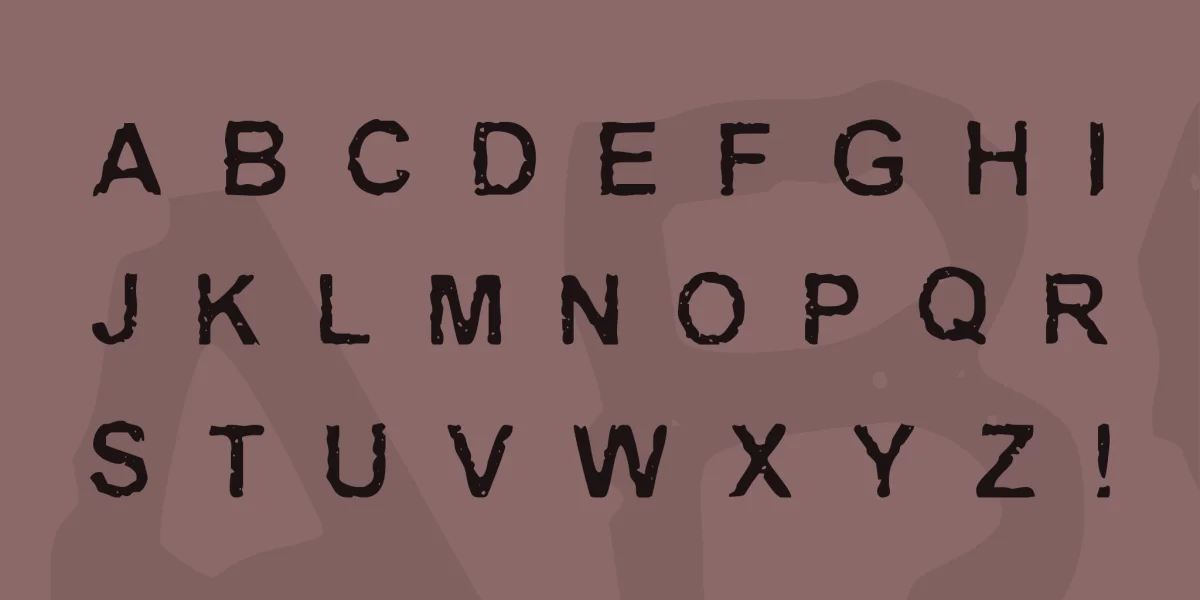
Caps only again, but this time with a bit extra: the exclamation mark! I figured as it was supposed to be a rubber stamp style font that it ought to have an exclamation mark to add emphasis to the words 'classified' and 'top secret' ;-)